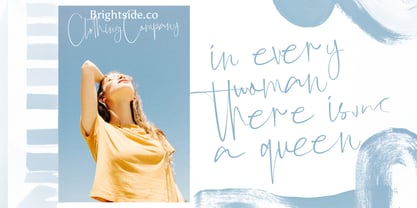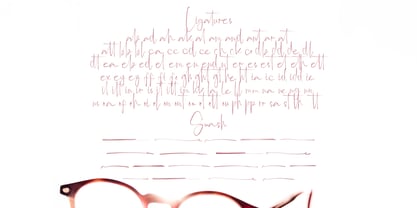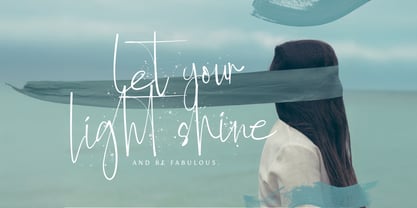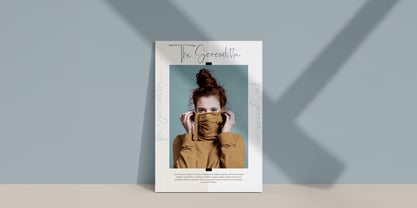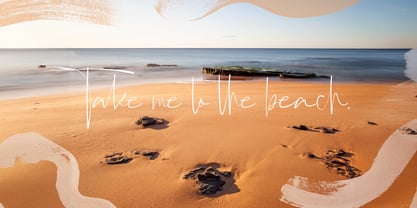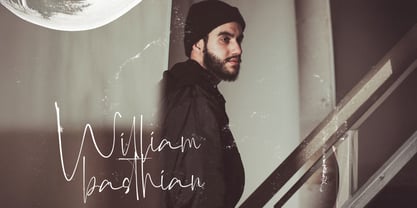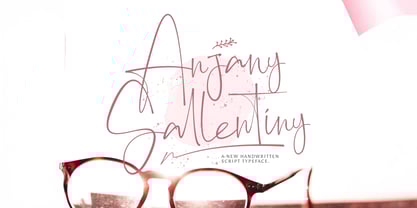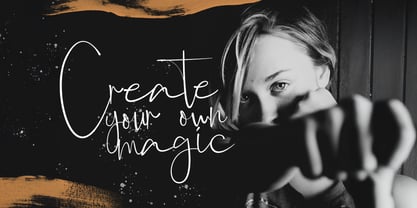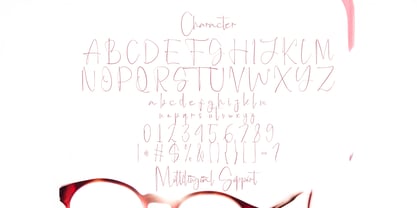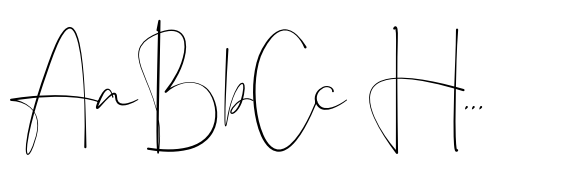
Anjany Sallentiny
by Stringlabs Creative Studio
The Anjany Sallentiny Font Family was designed by Virgiawan Listanto and published by Stringlabs Creative Studio. Anjany Sallentiny contains 1 styles.
Anjany Sallentiny is a beautifully crafted handwritten font that brings elegance and a personal touch to any design project. Its delicate and flowing characters are well-balanced, making it an ideal choice for various applications.
Designers: Virgiawan Listanto
Publisher: Stringlabs Creative Studio
Foundry: Stringlabs Creative Studio
Design Owner: Stringlabs Creative Studio